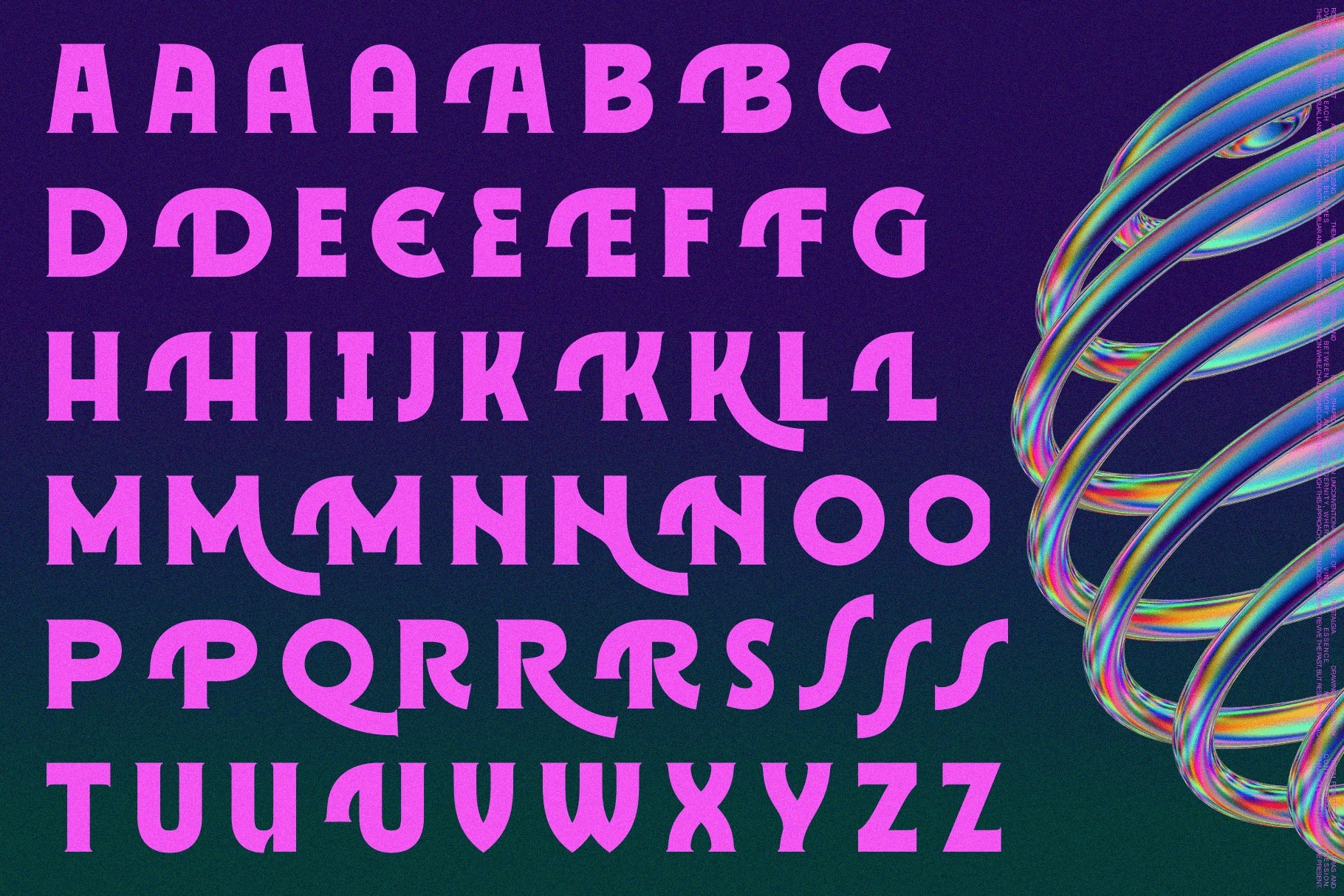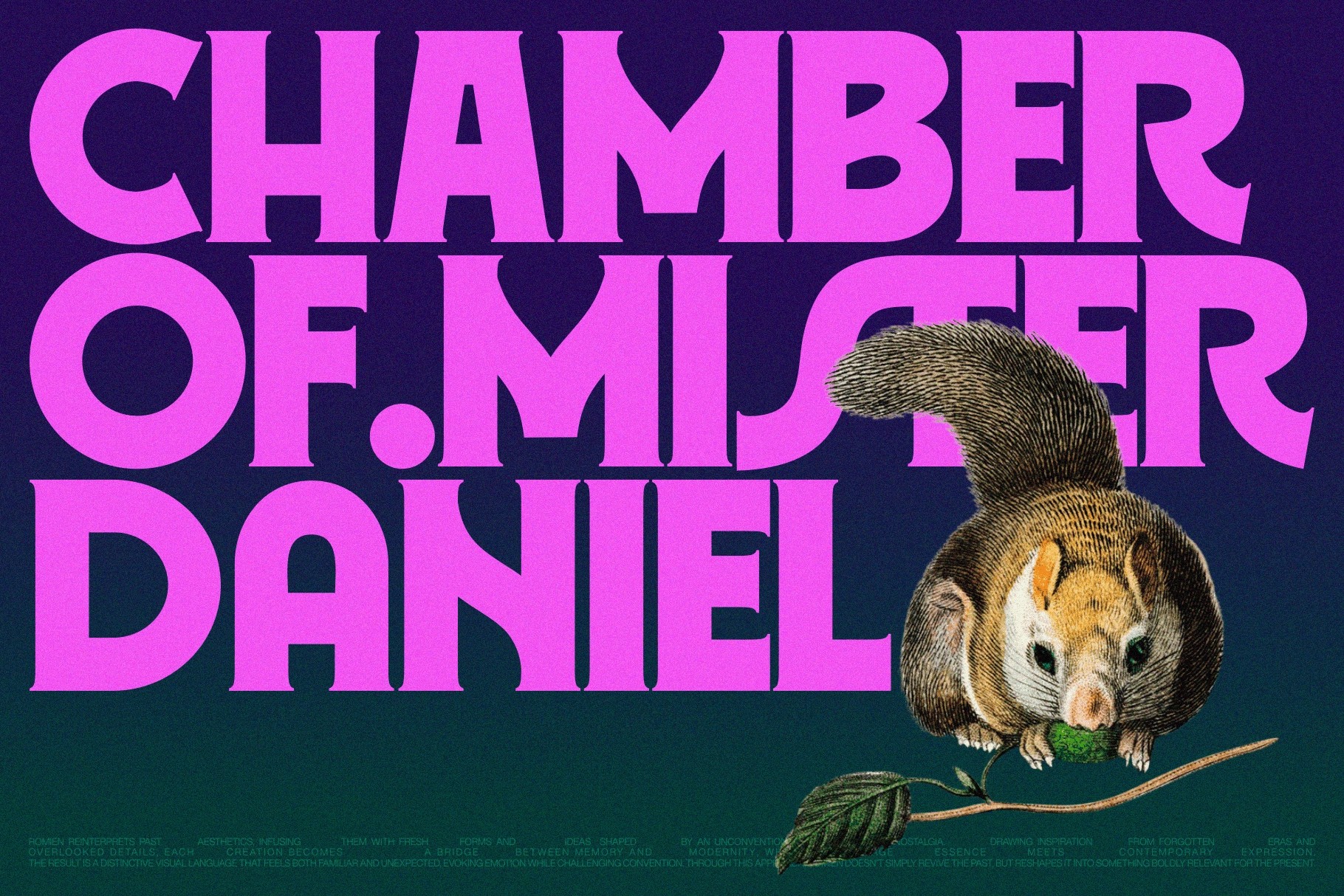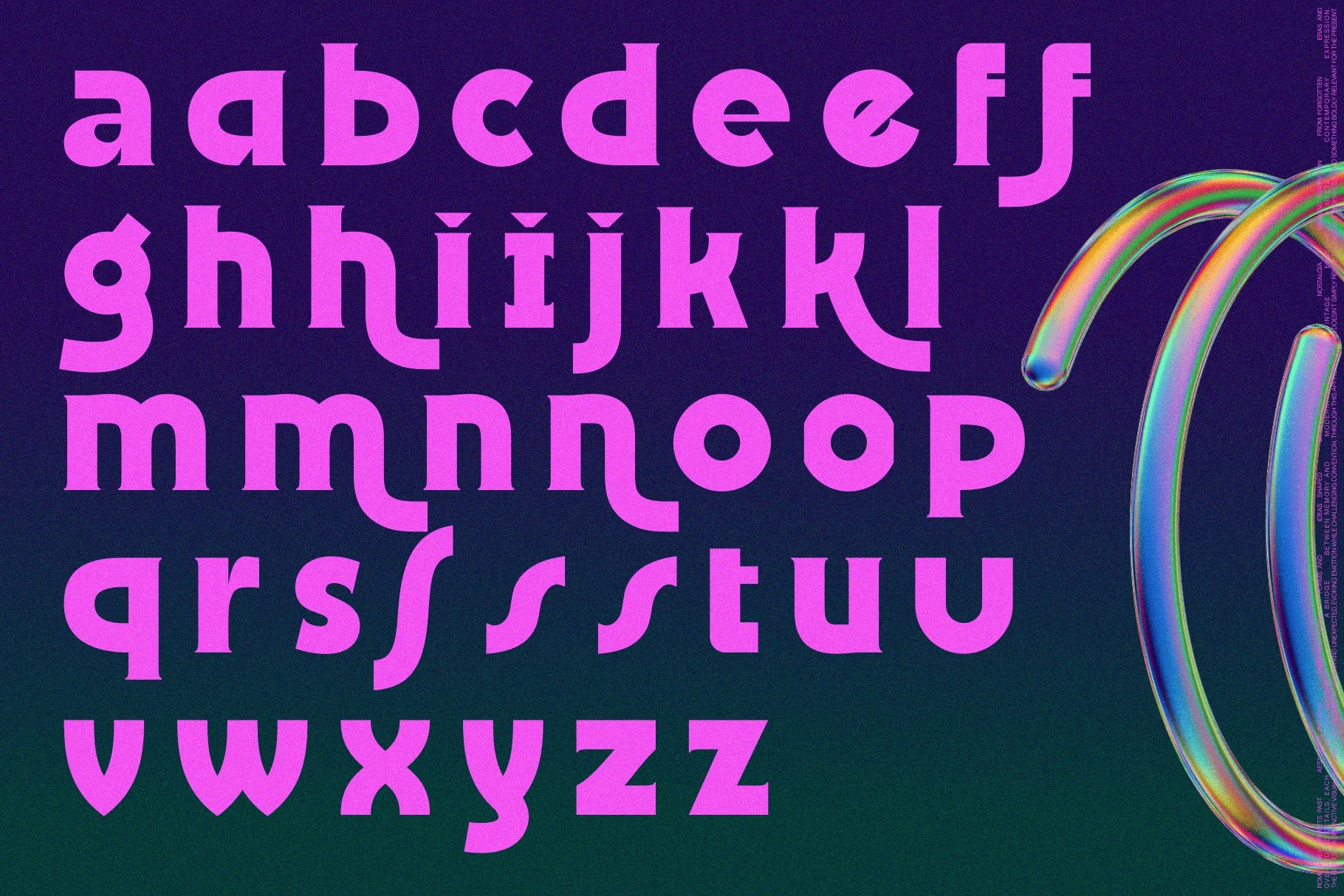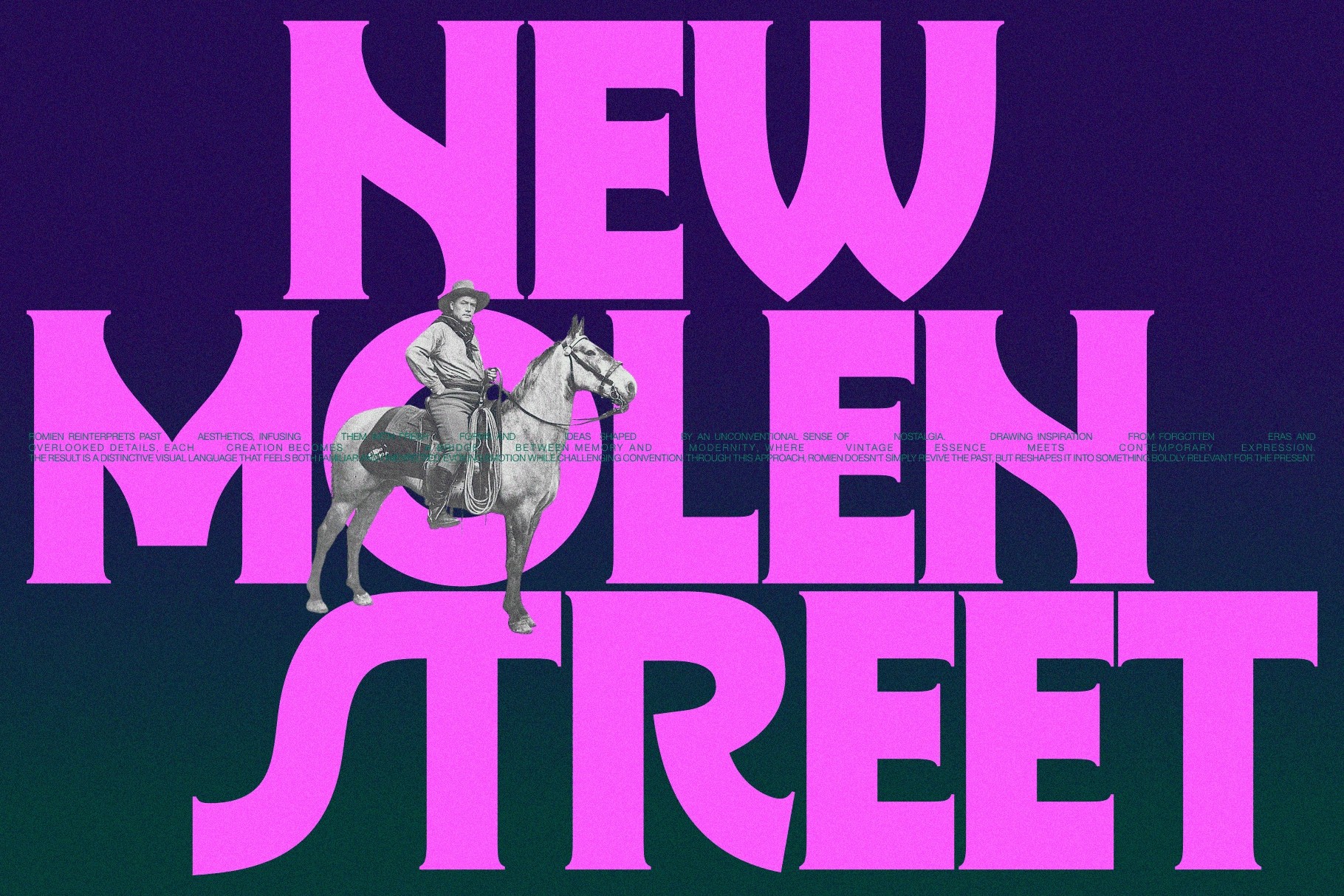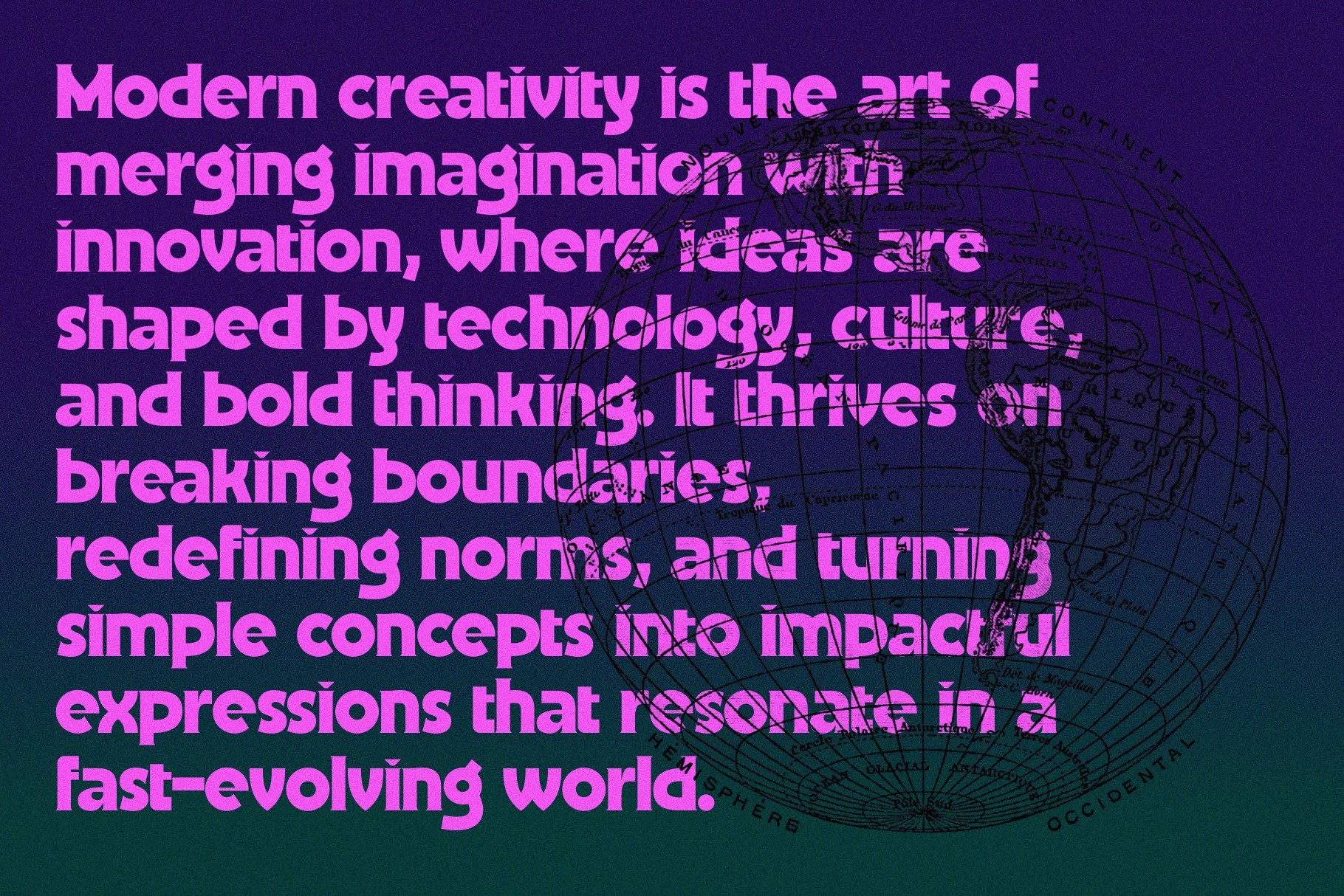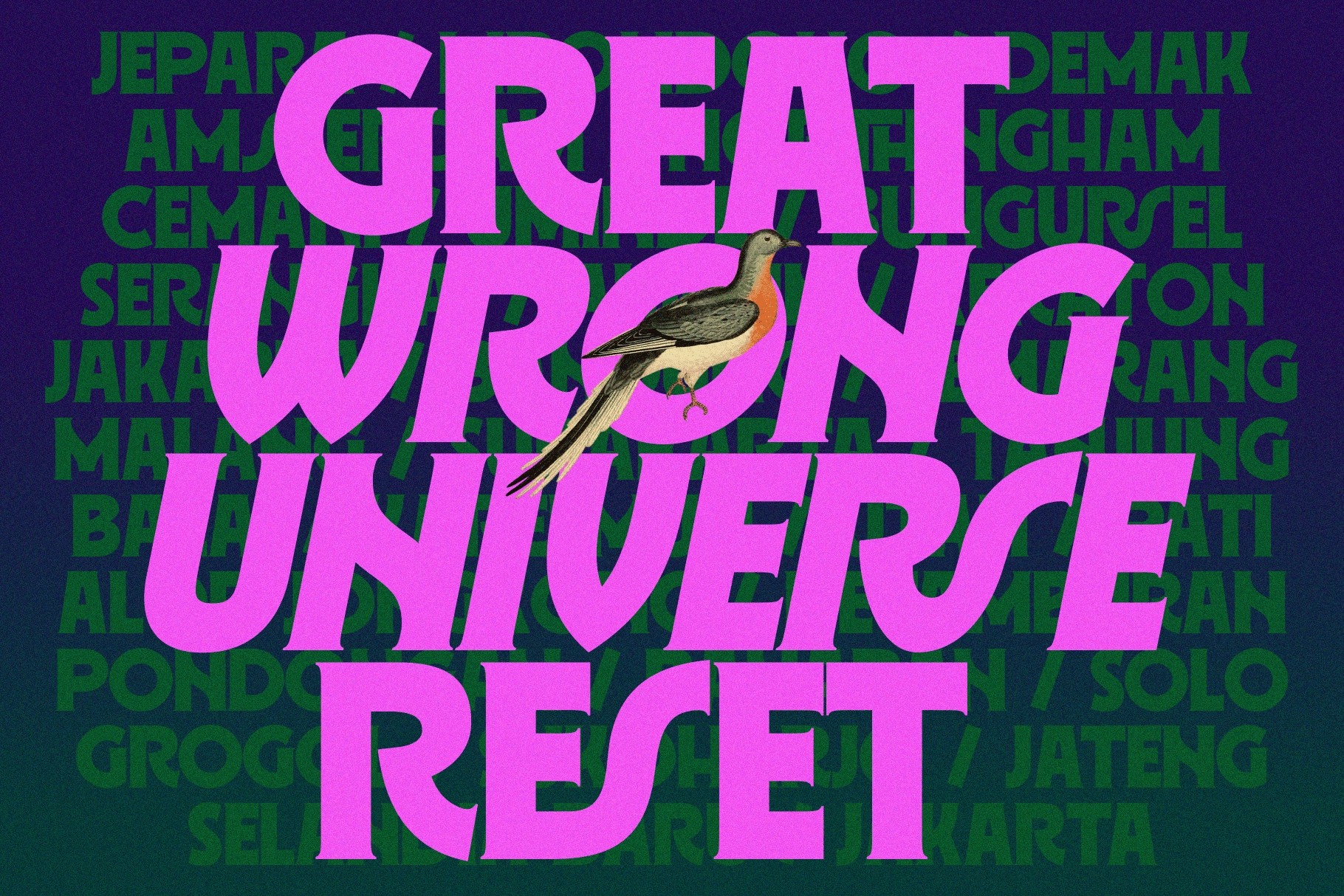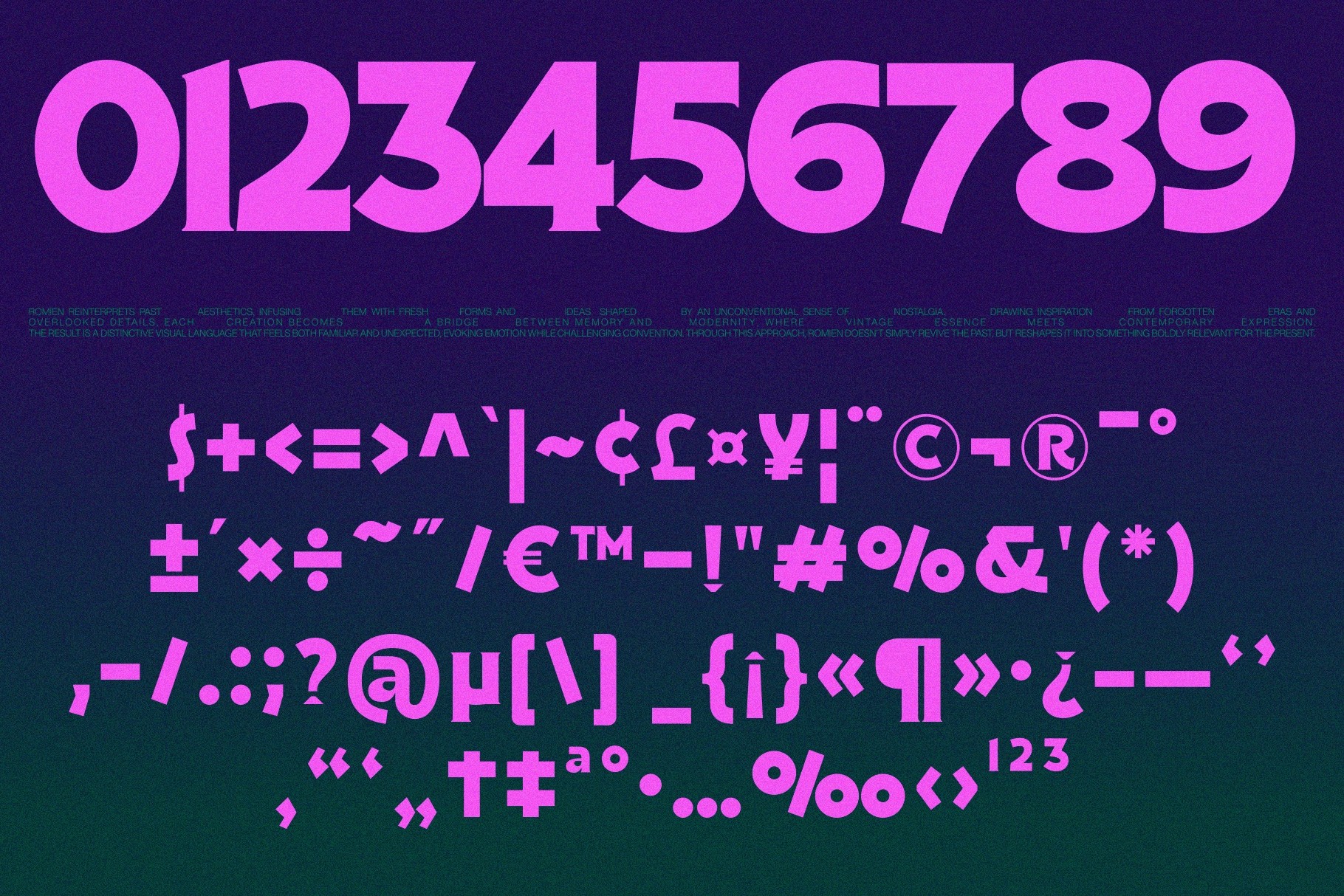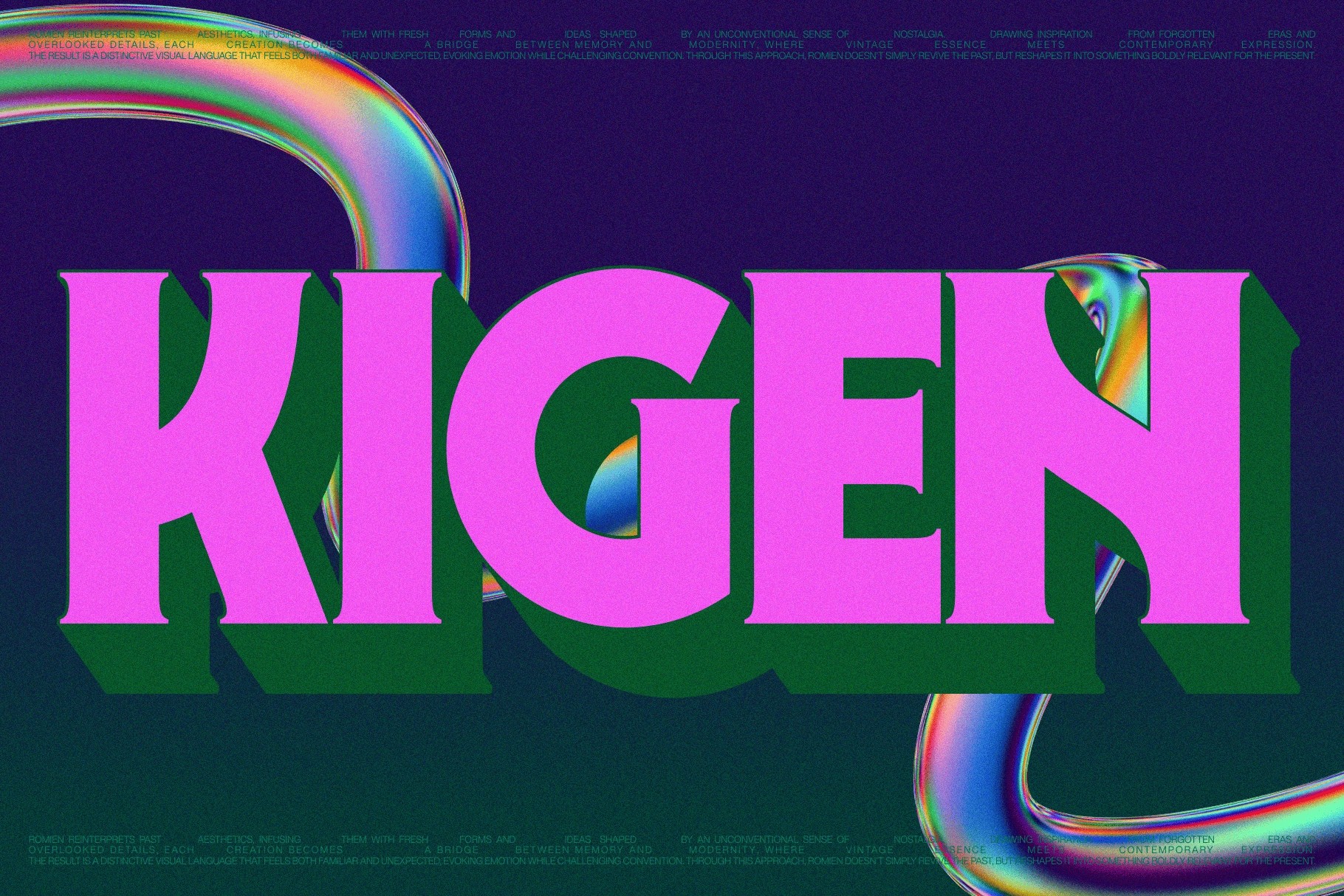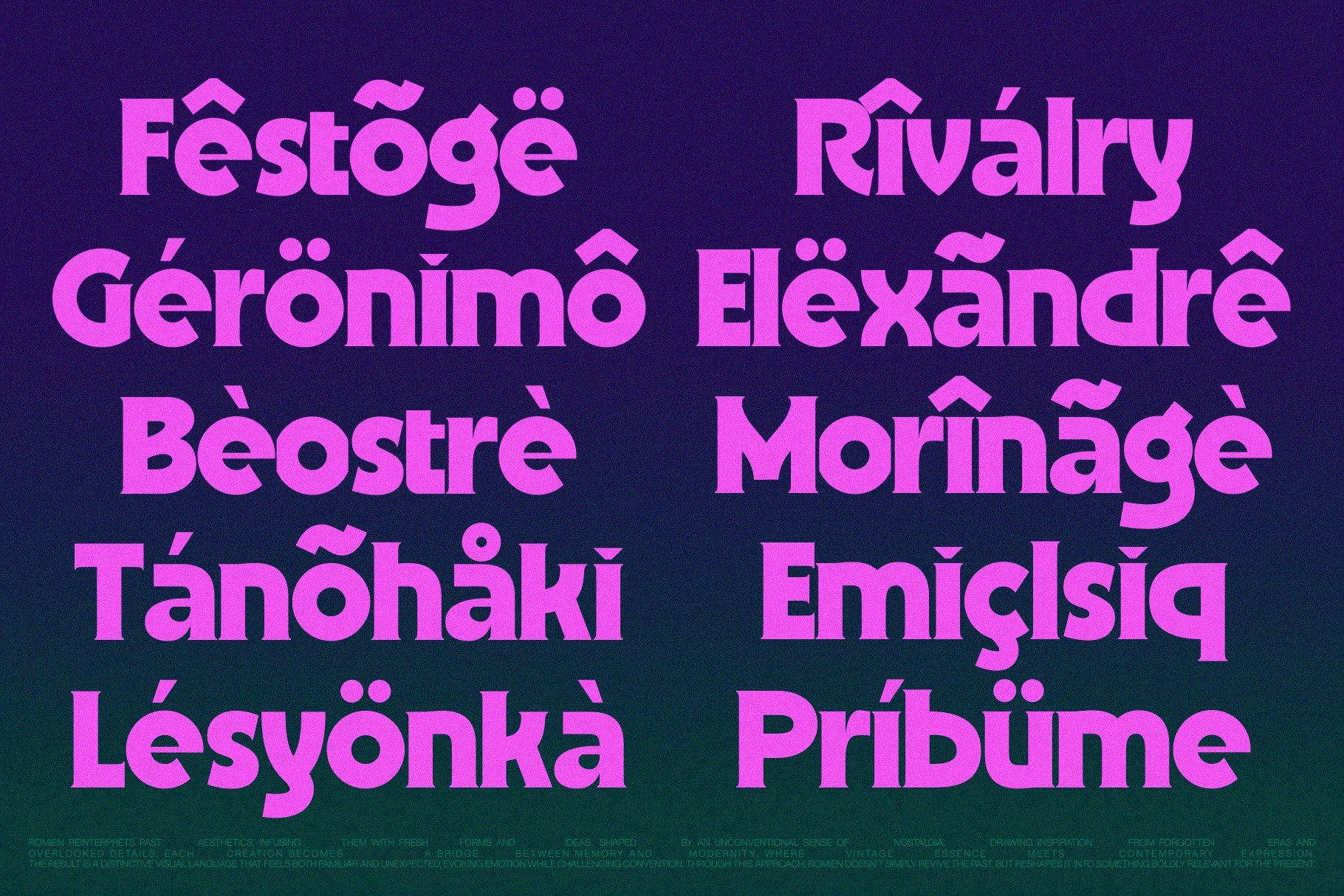
ROMIEN — Elegant Ligature Serif Font
Romien
Slanted
ROMIEN — Elegant Ligature Serif Font is a modern-classic display typeface that blends vintage elegance with a bold contemporary attitude. Inspired by historical letterforms yet refined through a modern lens, it creates a distinctive balance between nostalgia and innovation, making designs feel expressive, stylish, and memorable.
Its refined ligatures and alternates add rhythm and sophistication, allowing for visually rich compositions while maintaining clarity and structure. Suitable for branding, editorial design, and impactful headlines, this typeface transforms classic serif aesthetics into a fresh, modern visual language.
- Uppercase and Lowercase letters
- Two styles: Normal and Slanted
- Ligatures and stylistic alternates
- Punctuation marks and symbols